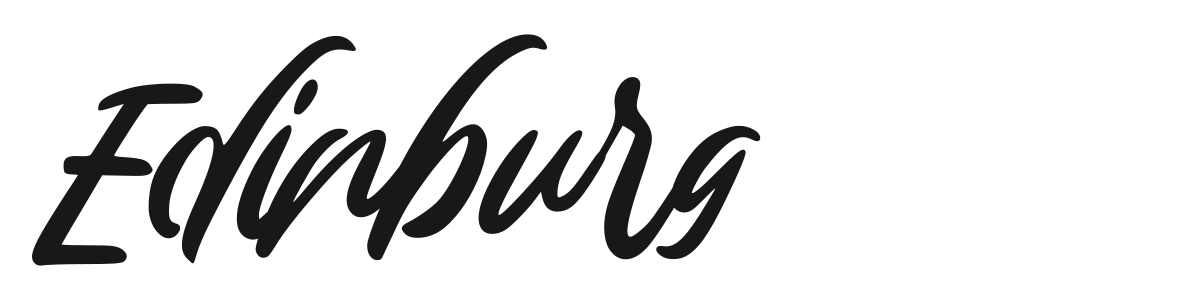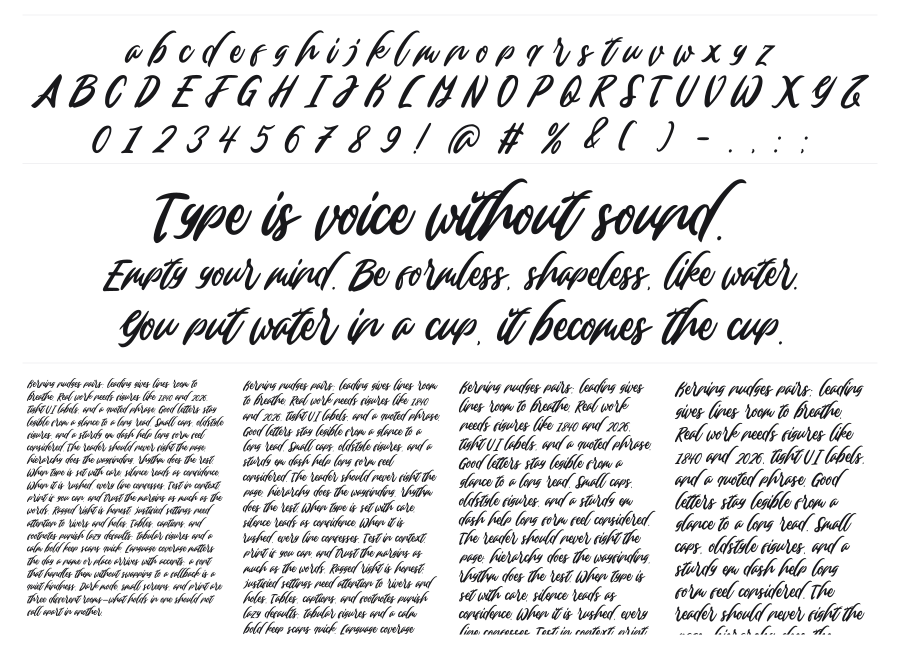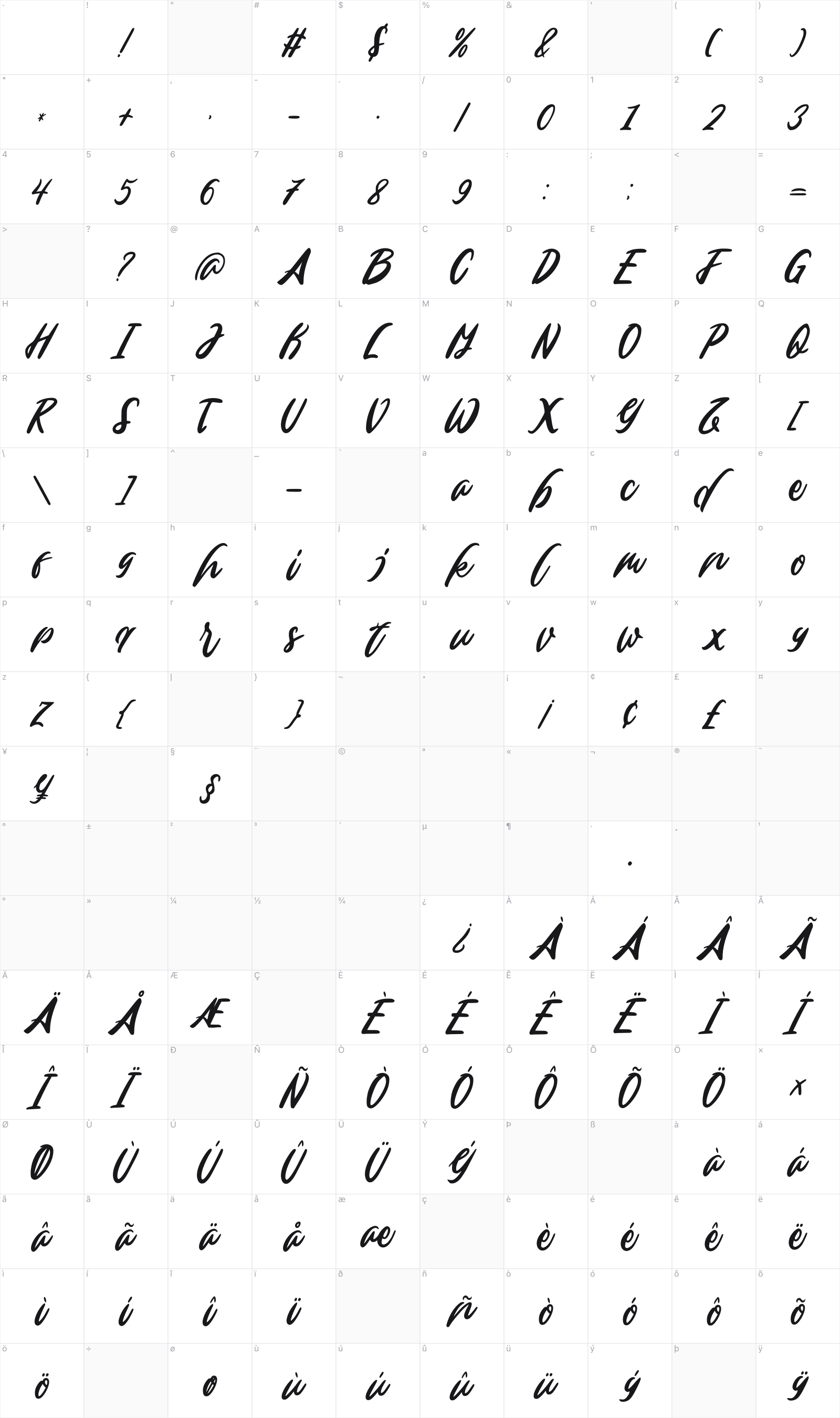
Edinburg
Edinburg is a bold brush script with fluid, connected strokes and the spontaneous energy of hand-lettering. Sweeping loops and thick downstrokes give it a confident, casual warmth that reads well at large sizes. It belongs naturally on packaging, logos, and anywhere handcrafted personality is the point.